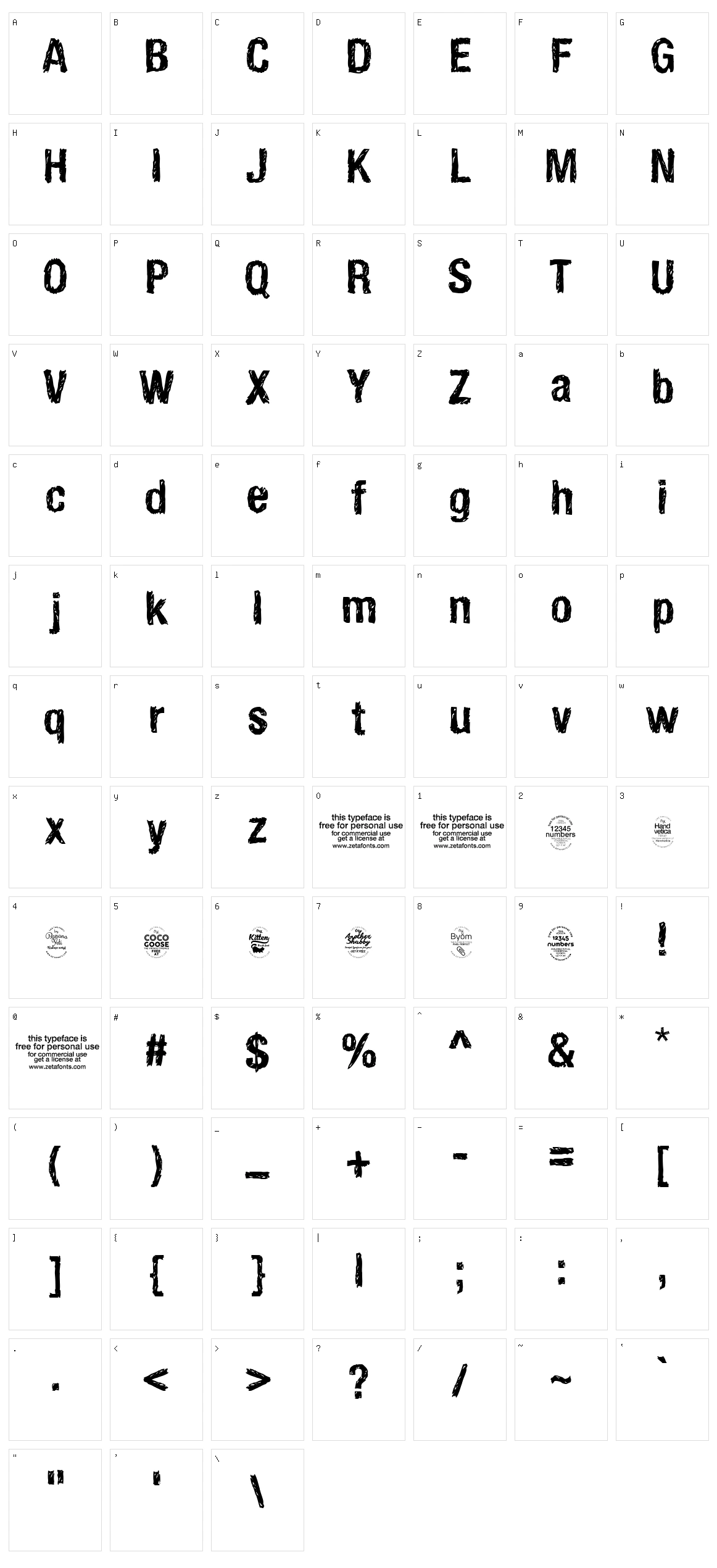
Handvetica is the first version of Handvetica Neue, a hand drawn sans serif typeface designed by Cosimo Lorenzo Pancini and inspired by the look of classic modernist typefaces.
If you like this font, try Handvetica Neue: it covers over 40 languages that use the Latin alphabet, with full range of accents and diacritics, and comes in two weights (light and regular) and a condensed version (Handvetica Neue Condensed, released in 2008 as "Handvetica").